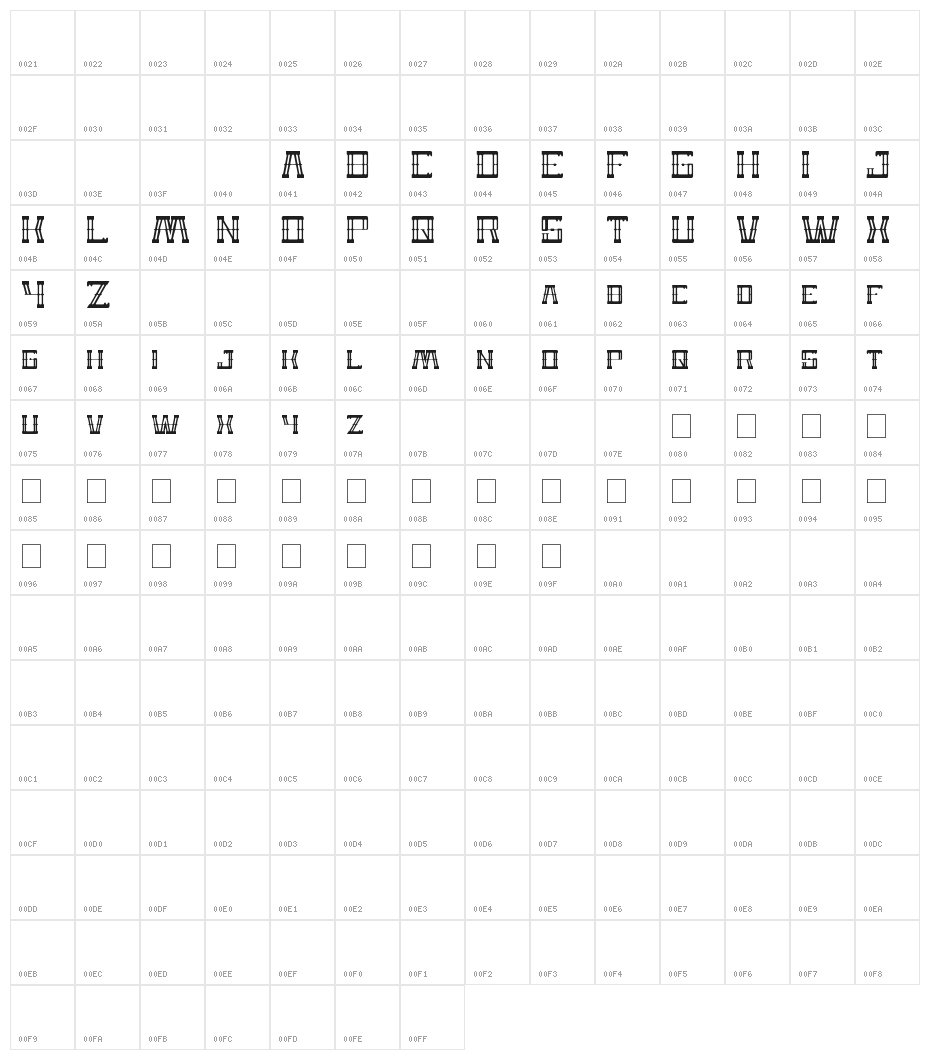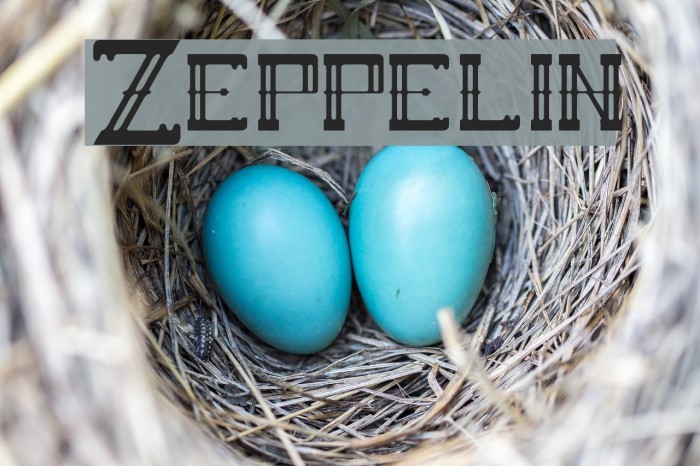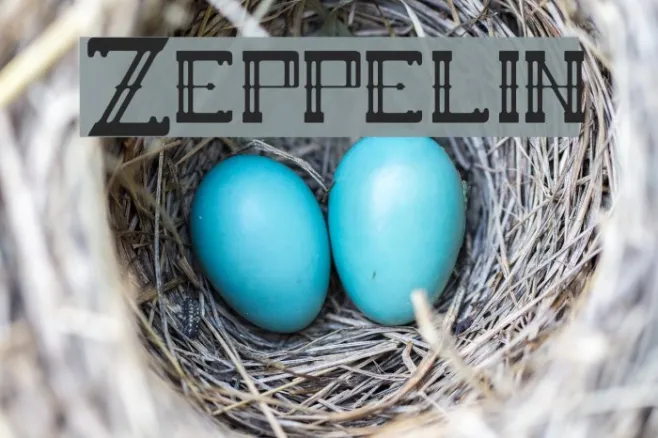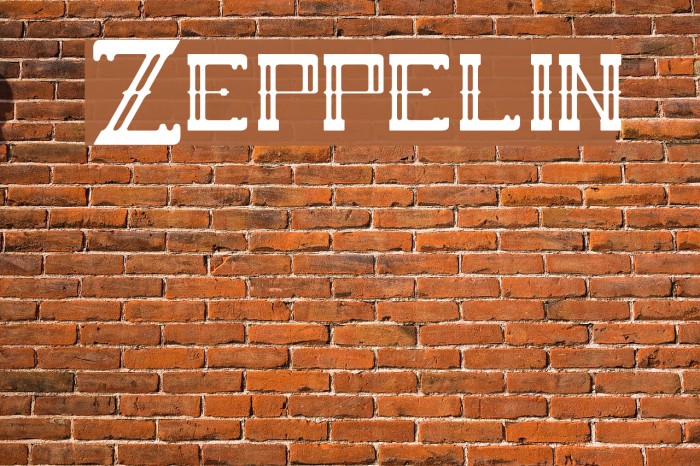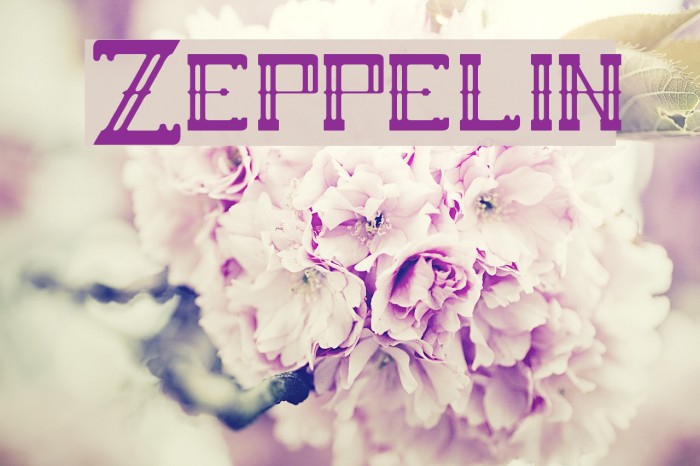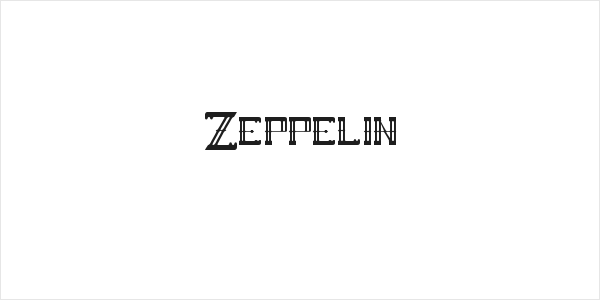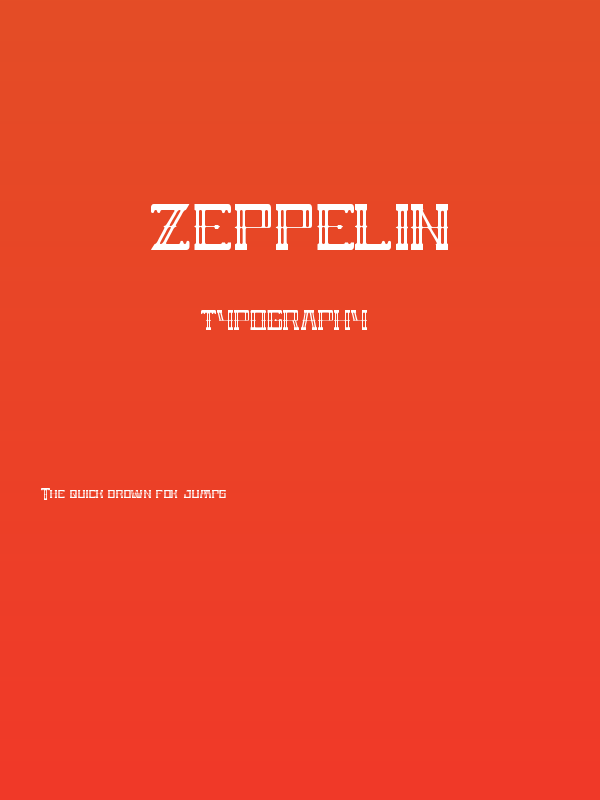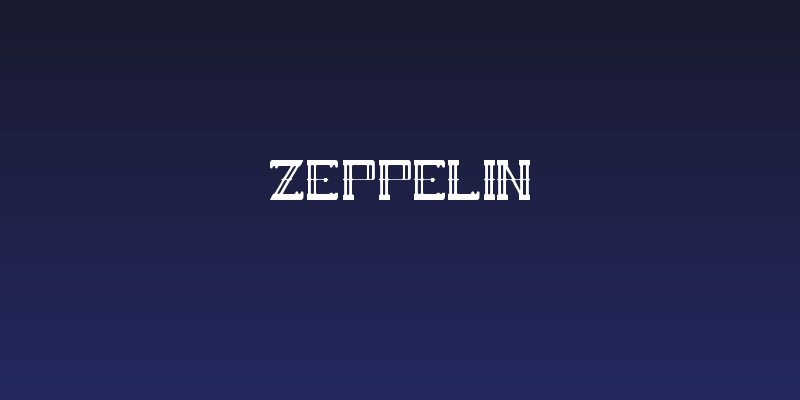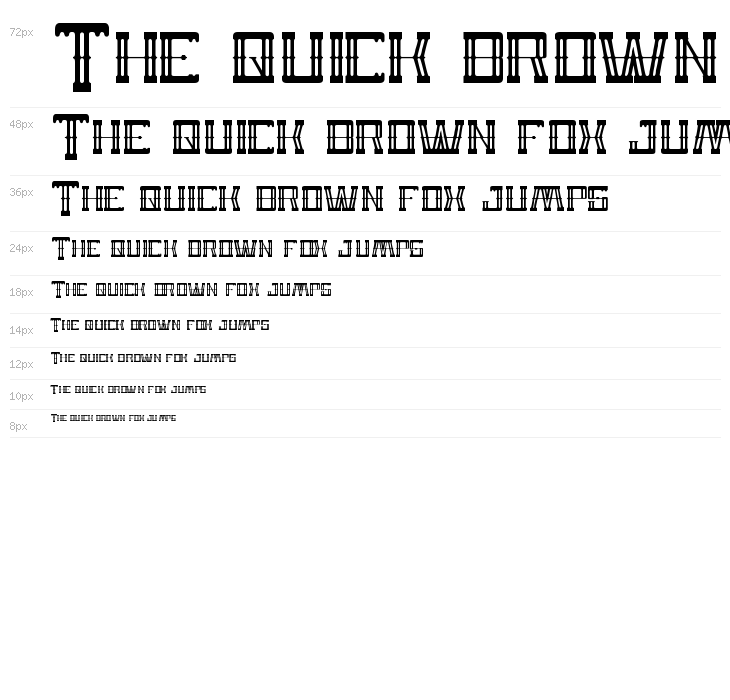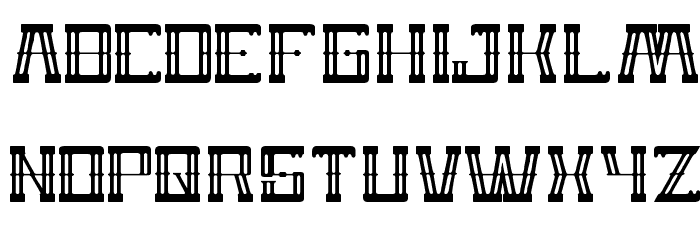
Zeppelin Font
Zeppelin Description
This font features a bold and distinctive design with a strong industrial influence. The characters are constructed with a combination of thick and thin lines, creating a mechanical and structured appearance. The uppercase letters are particularly striking, with a geometric and angular style that suggests a sense of strength and stability. The font's unique design elements make it stand out, with each character having a consistent and cohesive look. The overall aesthetic is reminiscent of vintage machinery or architectural blueprints, giving it a timeless yet modern feel.
| Overall Style | Industrial, Modern |
| Proposed Projects | Ideal for projects that require a strong, industrial aesthetic such as branding for construction companies, technology firms, or automotive industries. It can also be used for posters, signage, and any design that aims to convey strength and precision. |